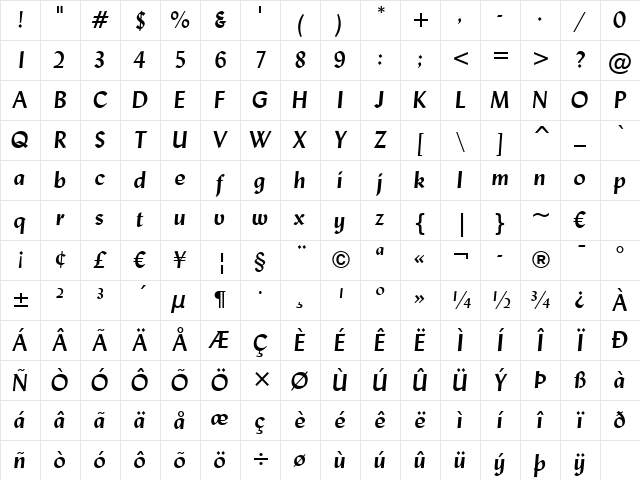
Lydian BT Bold Italic
Lydian BT Family
Lydian BT Bold Italic
Design Context for Lydian BT
Lydian BT is a composed and adaptable typeface that performs quietly and consistently across a wide range of design contexts. The slanted form adds forward momentum and visual energy. Its bold stroke weight gives it real presence on the page.